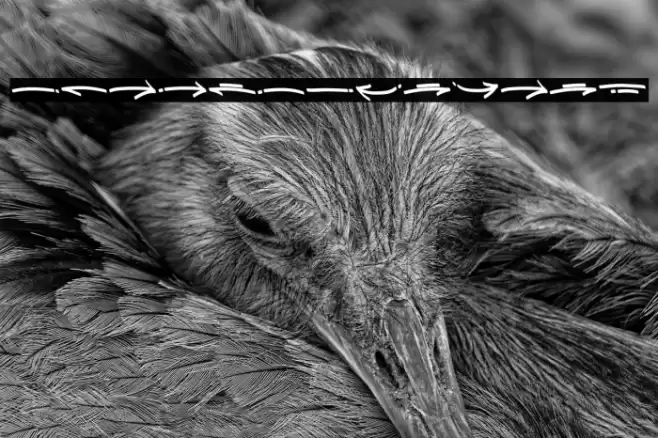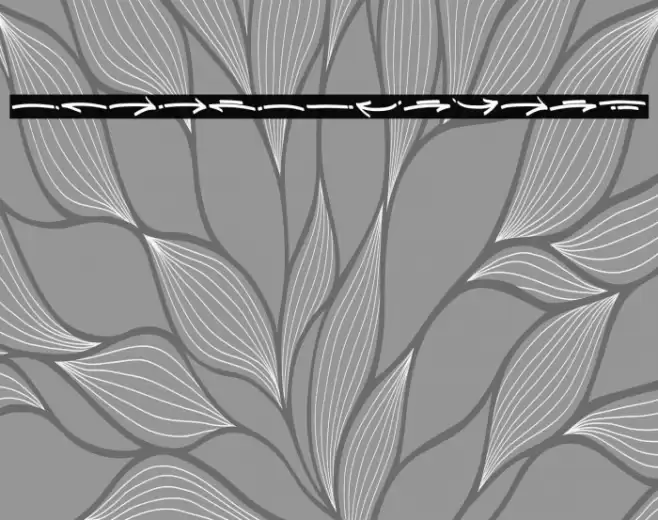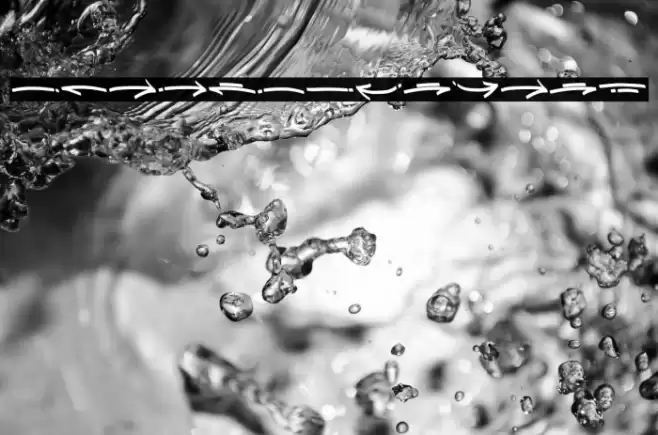
DraftBoxSwash Font
DraftBoxSwash Description
This design features a series of decorative swashes and arrows, creating a dynamic and flowing visual effect. The elements are arranged in a linear fashion, resembling barbed wire or a stylized border. The lines are composed of alternating thick and thin strokes, adding a sense of movement and direction. The overall appearance is playful and artistic, suitable for creative projects that require a unique and eye-catching border or divider. The design is not a traditional font with alphanumeric characters but rather a decorative element that can enhance visual compositions.
| Use Case | Borders, Dividers, Decorative elements |
| Proposed Projects | Ideal for use in graphic design projects such as posters, invitations, or digital artwork where a decorative border or divider is needed. |